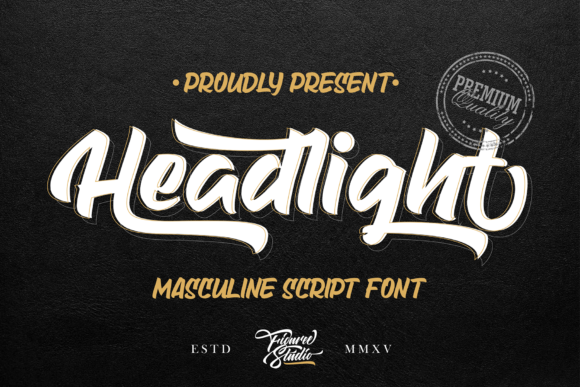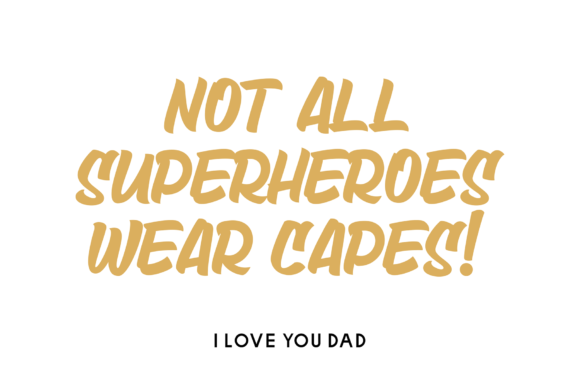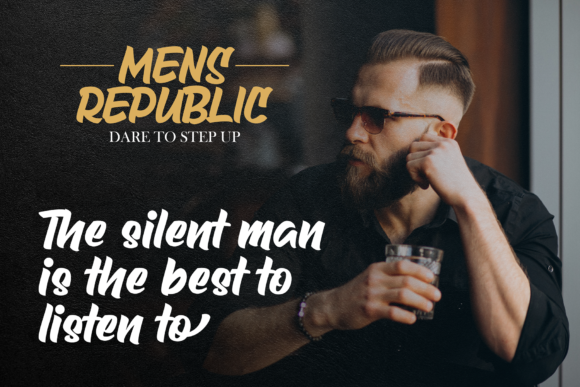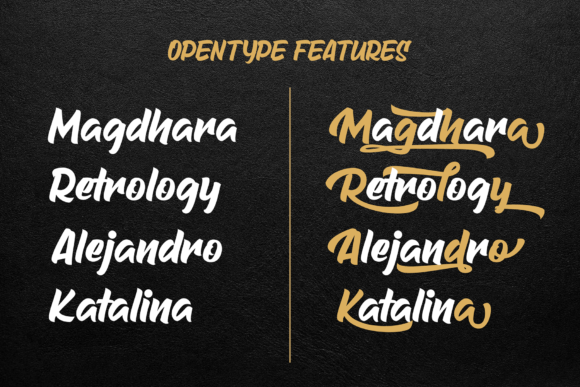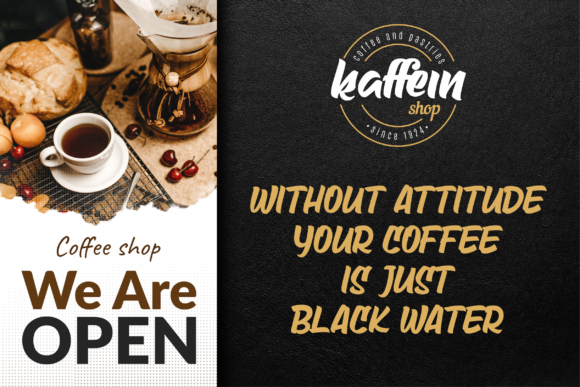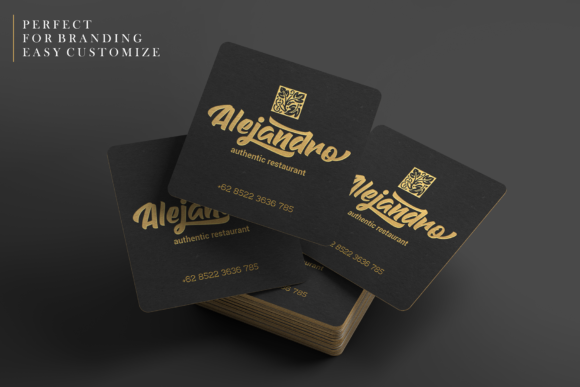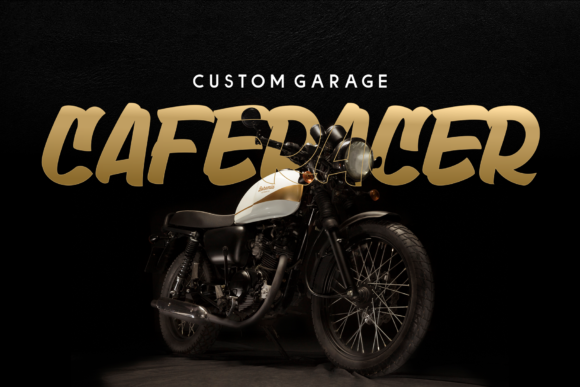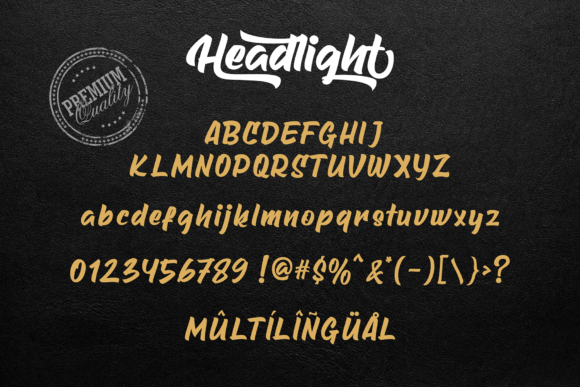
Headlight Font
About Headlight Font
Headlight is a new script that comes from natural handwriting. Use it for any design project that requires a personalized appearance!